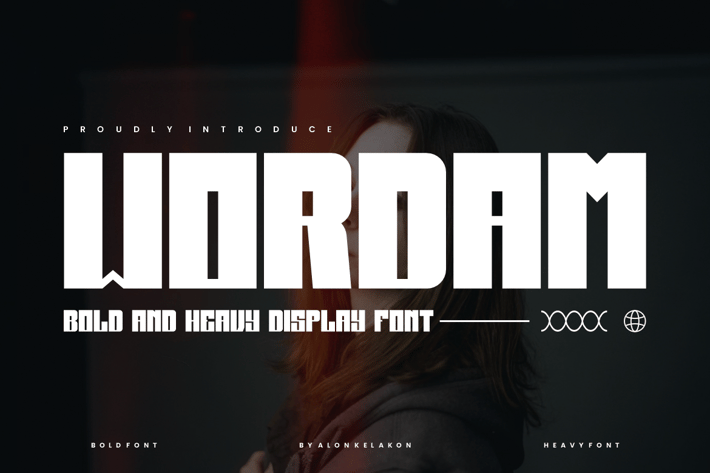
Wordam - Bold Display Font
Wordam Font is unique . Ready to use for your design like labeling, movie sceen, poster, movie title, gigs, album covers, logos, and much more.